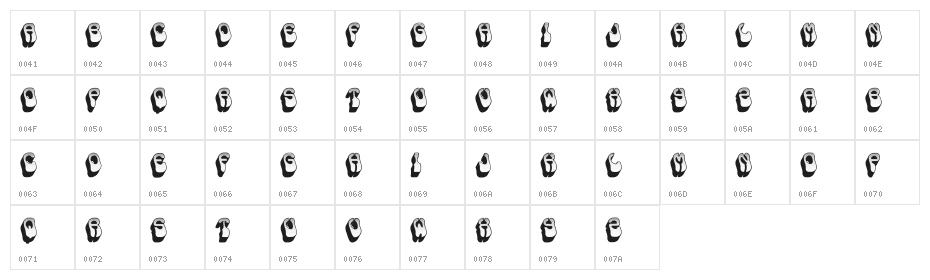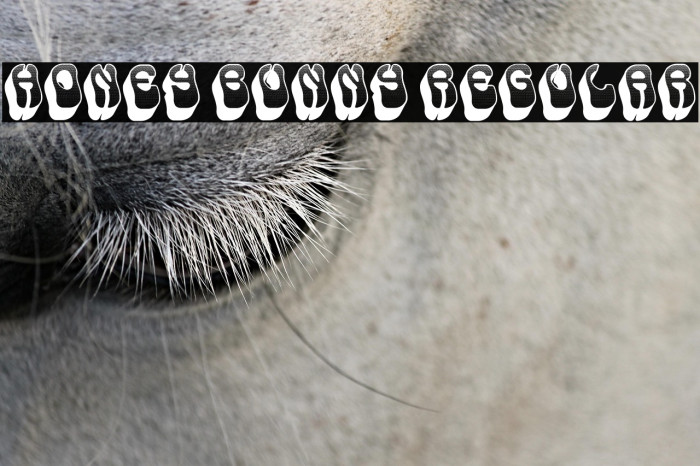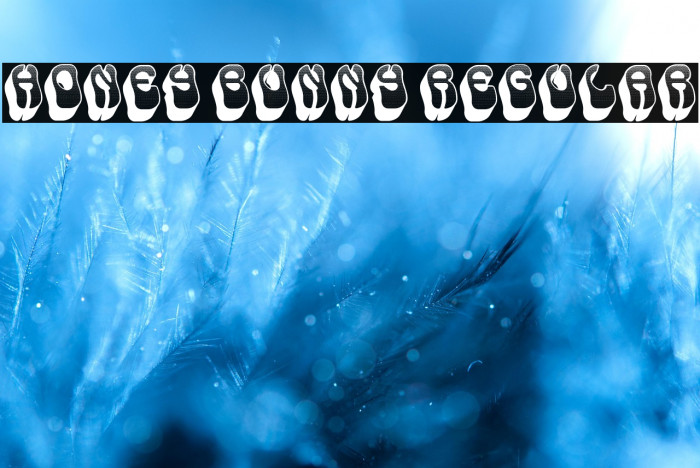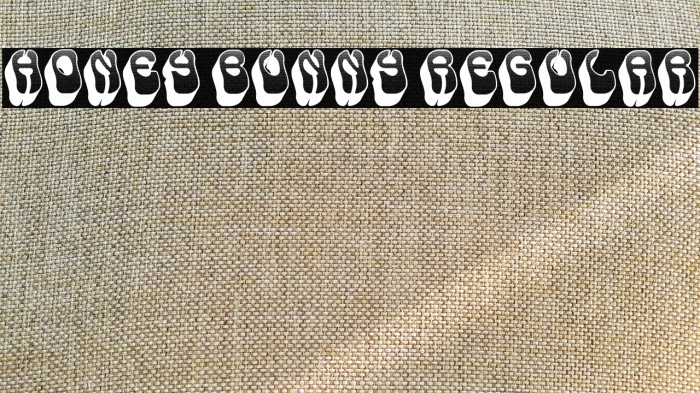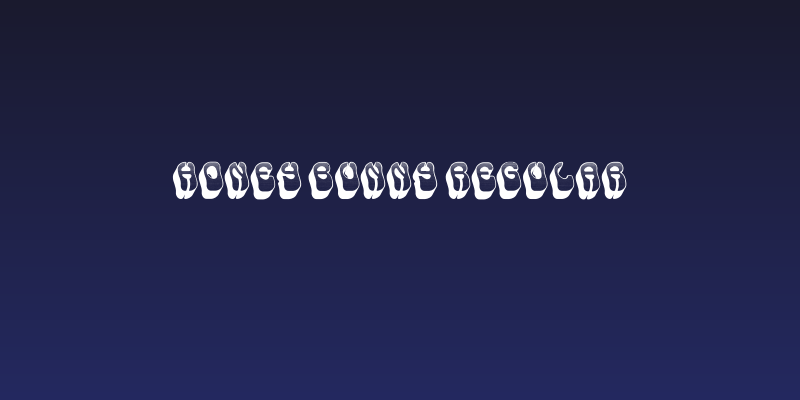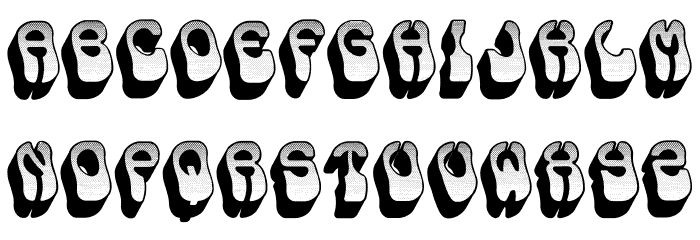
Honey Bunny Regular Font
Honey Bunny Regular Description
This playful and bold font features a unique 3D shadow effect that gives each character a sense of depth and dimension. The letters are rounded and have a cartoonish, bubble-like appearance, making them stand out with a fun and whimsical style. The font is highly decorative, with a strong visual impact that is perfect for grabbing attention. Its thick strokes and exaggerated curves make it ideal for creative projects that require a touch of humor and lightheartedness. The font's distinct style is both eye-catching and memorable, making it suitable for a variety of design applications.
| Overall Style | Whimsical, Fun, Playful |
| Proposed Projects | Ideal for children's book covers, playful posters, comic strips, and fun branding projects. |